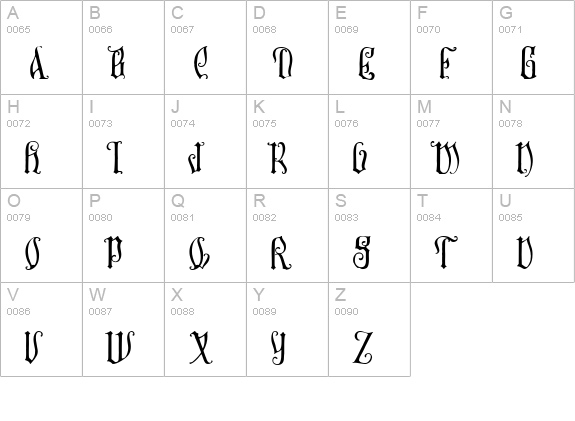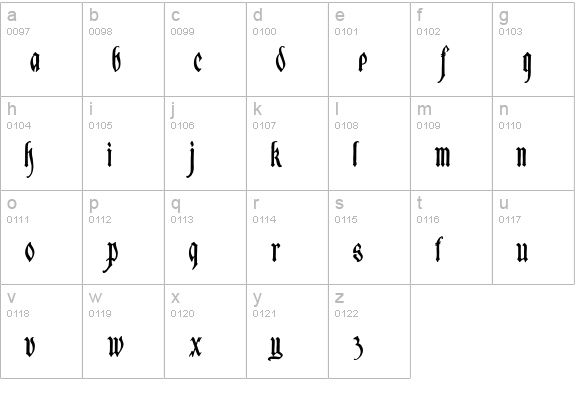
Sauerkraut Font Details
Introducing Sauerkraut, a delectably versatile and uniquely captivating font that will add a touch of whimsy to any design project. With its playful curves and charmingly uneven strokes, Sauerkraut exudes a sense of handcrafted authenticity that is both refreshing and captivating. This free font offers an extensive range of characters, from uppercase and lowercase letters to numerals and punctuation marks, all designed with meticulous attention to detail. Whether you're creating eye-catching headlines, captivating logos, or engaging social media graphics, Sauerkraut effortlessly infuses each project with a delightful personality. But what truly sets Sauerkraut apart is its accessibility. This font is freely available to download at FontsMarket.com, making it an ideal choice for both personal and commercial use. Its open-source nature allows you to explore your creativity without any limitations, ensuring that Sauerkraut becomes an indispensable tool in your design arsenal. Embrace the whimsical charm of Sauerkraut and watch as your designs come to life with unrivaled vibrancy. Let your imagination run wild, knowing that this captivating font is at your fingertips, ready to elevate your creative endeavors to new heights. Download Sauerkraut today and unlock a world of limitless possibilities.